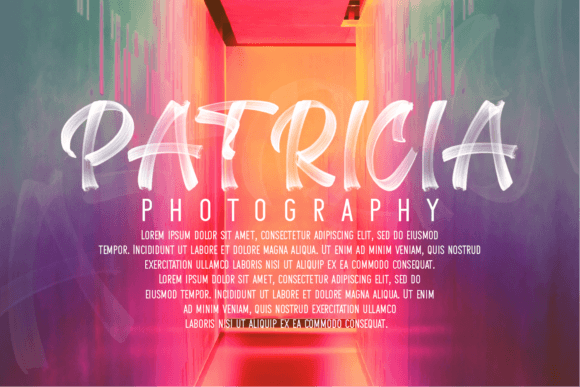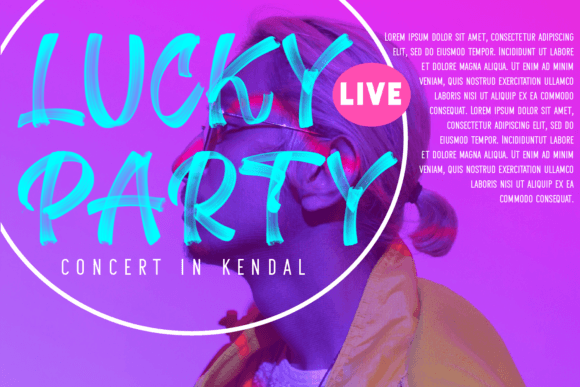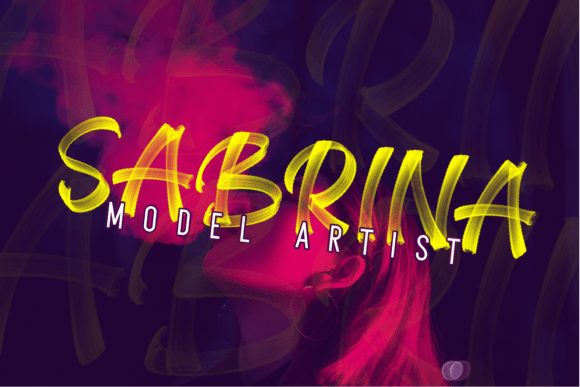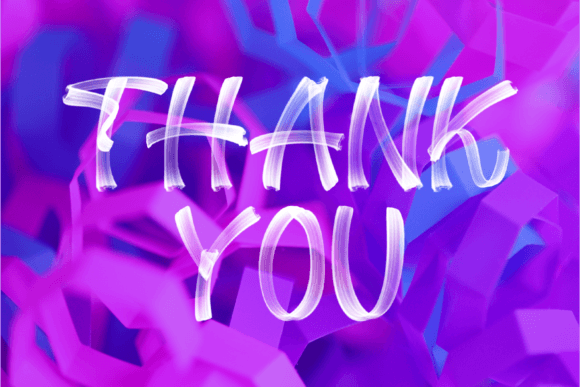
Introducing Brush Text Font: A Cool and Modern Color Font
Are you looking for a font that can add a touch of creativity and sophistication to your designs? Look no further than Brush Text Font! This modern color font is perfect for designers and crafters who want to take their projects to the next level. With its unique blend of style and versatility, Brush Text Font is sure to impress.
What is Brush Text Font?
Brush Text Font is a modern color font that features a beautiful, hand-brushed design. Its unique texture and color give it a distinctive look that’s perfect for a wide range of projects, from digital designs to print materials. Whether you’re creating a logo, a poster, or a social media graphic, Brush Text Font is sure to make your design stand out.
Key Features of Brush Text Font
• Modern and Cool Design: Brush Text Font features a modern and cool design that’s perfect for designers and crafters who want to create unique and eye-catching projects.
• Color Font: Unlike traditional fonts, Brush Text Font is a color font that features a range of colors and textures, giving it a distinctive look that’s sure to impress.
• Hand-Brushed Texture: The hand-brushed texture of Brush Text Font gives it a unique, organic feel that’s perfect for creating designs that look hand-crafted.
• Versatile: Brush Text Font is versatile and can be used for a wide range of projects, from digital designs to print materials.
Benefits of Using Brush Text Font
So, why should you use Brush Text Font in your projects? Here are just a few benefits of using this amazing font:
• Adds Creativity to Your Designs: Brush Text Font is perfect for designers and crafters who want to add a touch of creativity to their designs. Its unique texture and color give it a distinctive look that’s sure to make your designs stand out.
• Perfect for a Wide Range of Projects: Whether you’re creating a logo, a poster, or a social media graphic, Brush Text Font is perfect for a wide range of projects.
Tips and Tricks for Using Brush Text Font
Here are a few tips and tricks for using Brush Text Font:
• Experiment with Different Colors: Brush Text Font features a range of colors, so don’t be afraid to experiment and find the perfect color for your design.
• Use it for Headings and Titles: Brush Text Font is perfect for headings and titles, so use it to add a touch of creativity to your designs.
• Combine it with Other Fonts: Brush Text Font can be combined with other fonts to create a unique and eye-catching design.
In conclusion, Brush Text Font is a cool and modern color font that’s perfect for designers and crafters who want to take their projects to the next level. With its unique blend of style and versatility, Brush Text Font is sure to impress. So why not add it to your projects today and see the amazing results for yourself?